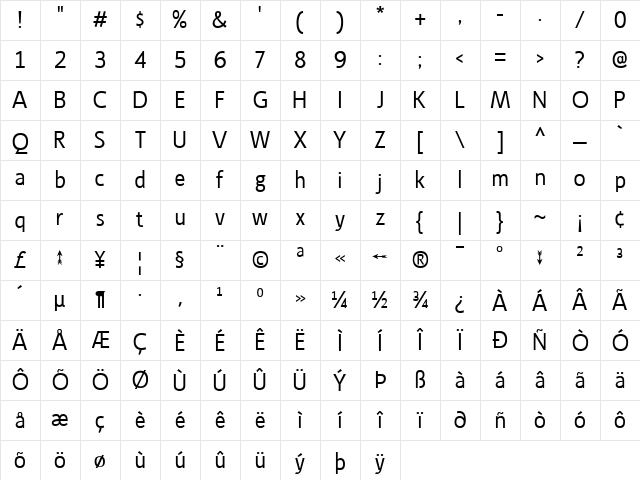
Ligurino Regular
Ligurino Family
Design Context for Ligurino
Ligurino is a composed and adaptable typeface that performs quietly and consistently across a wide range of design contexts.